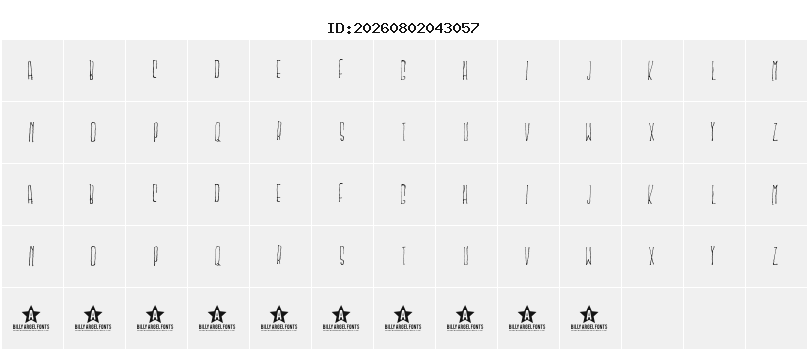
MSKITOKILLA Preview
• Font Name: MSKITOKILLA
• Font ID: Fontographer 4.7 MSKITOKILLA
• Full Font Name: MSKITOKILLA
• Version: Fontographer 4.7 3/10/10 FG4M­0000002045
• PostScript Name: MSKITOKILLA
• Character Count: 91
• Designer: BILLYA ARGEL
• Manufacturer: BILLY ARGEL
• Description: Copyright (c) 2010 by BILLY ARGEL. All rights reserved.
About MSKITOKILLA.otf
MSKITOKILLA.otf is a modern, elegant sans-serif font designed for ultimate readability and visual harmony. Perfect for branding, headlines, web design, and print materials.